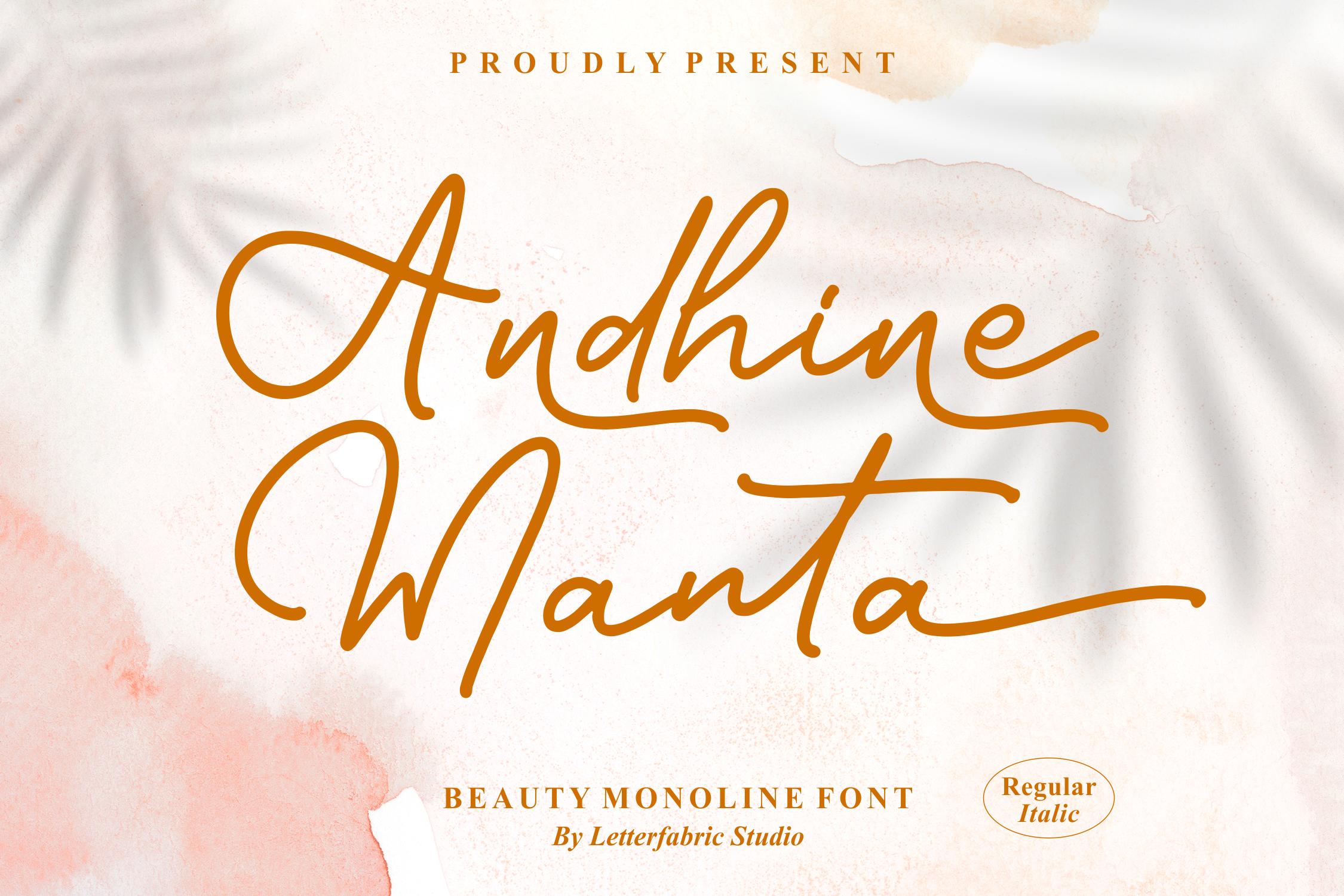
Andhine Manta Font Description
Andhine Manta is a delicate and beautiful script font. It is suitable for various projects such as: logos, branding projects, homeware designs, product packaging, mugs, quotes, posters, shopping bags, and various other creations. Andhine Manta is PUA encoded which means you can access all of the glyphs and swashes with ease!